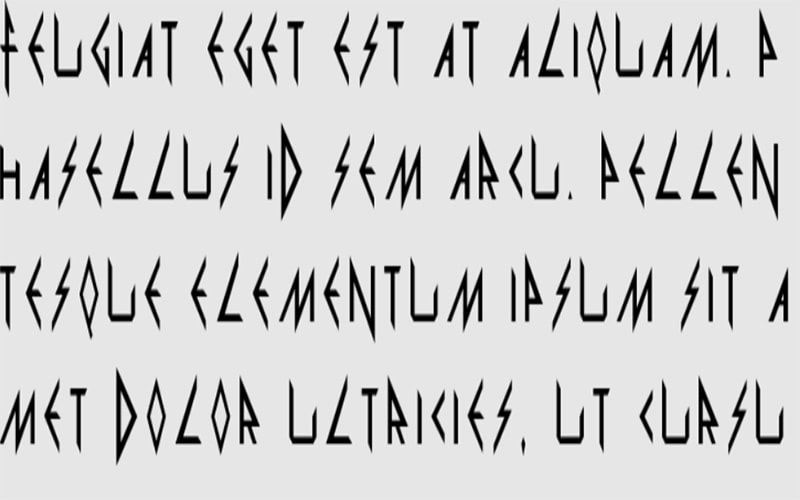
Def Leppard font is based on the logo typeface, an English rock band formed in 1977. This font is available in capital letters but has the most diacritical alphabet.
It is the trademark of Larabie fonts. This regular subfamily font is the perfect font for all your fun designs. It is a stylish text overlay to set any background image.
Def Leppard font has come with 93 characters set like 26 uppercase letters, 26 lowercase letters, and 10 numbers. In addition to the uppercase and lowercase schemes 31 special punctuation marks.
Def Leppard Font